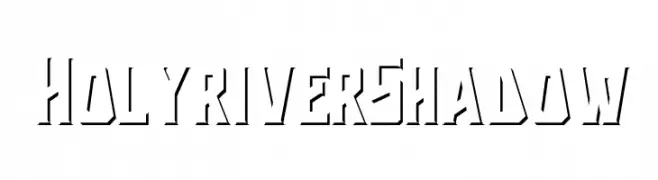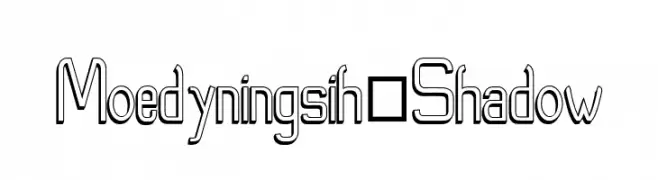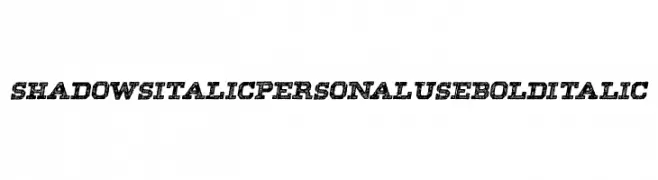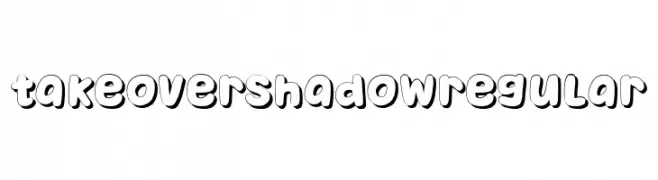
A decorative font with a shadow effect, blending script and display styles.
A bold, dynamic font with a graffiti-inspired style and shadow effect.
A geometric font with a distinctive shadow effect, creating a 3D look.
A bold, geometric font with a dynamic shadow effect for a 3D appearance.
A decorative font with swirls and shadows, offering a playful and artistic style.
A bold, shadowed font with a three-dimensional, geometric style.
A playful, bold font with a shadow effect and rounded, bubbly characters.
A bold, decorative font with intricate details and shadow effects.
A bold, shadowed serif font with a dynamic, three-dimensional look.
A bold, italicized font with a textured shadow effect, perfect for vintage-inspired designs.